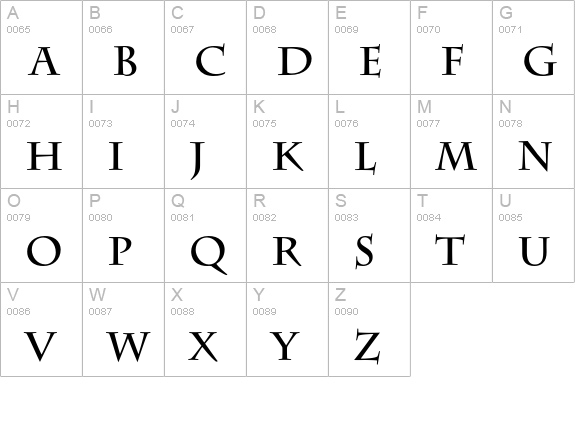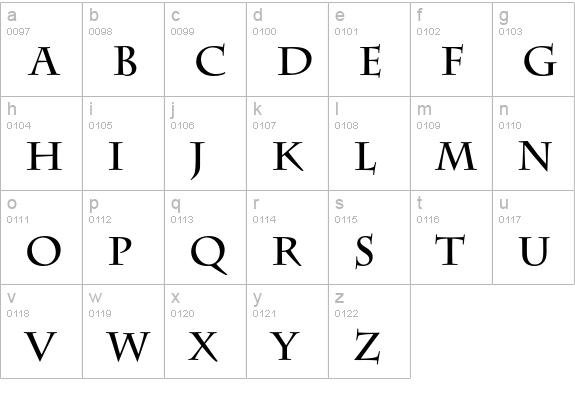
Charlemagne Std Bold is a strong, high-contrast variant in the Charlemagne typeface family \xE2\x80\x94 well suited to headlines, attention-grabbing titles, and strong calls-to-action.
Charlemagne Std Bold font is a bold and commanding typeface that exudes strength and authority. Its thick and sturdy letterforms make a bold statement, perfect for headlines and titles that need to grab attention. With its classic yet modern aesthetic, Charlemagne Std Bold is a versatile font that can be used in a variety of design projects. What makes Charlemagne Std Bold even more appealing is that it is available for free download at FontsMarket.com. This means that you can easily access this powerful font and incorporate it into your designs without any cost. Whether you're working on a poster, logo, or any other creative project, Charlemagne Std Bold is a reliable choice that will make your text stand out. Download it today and add a touch of boldness to your designs!